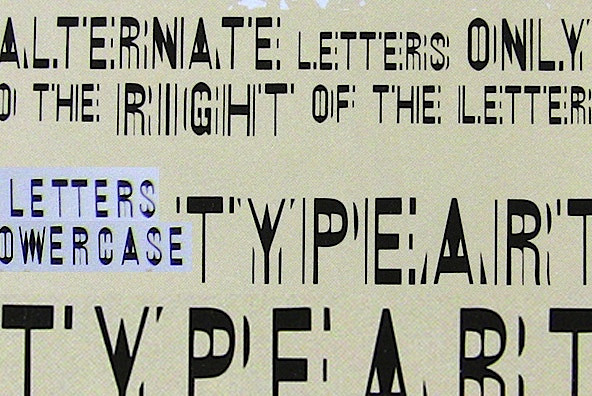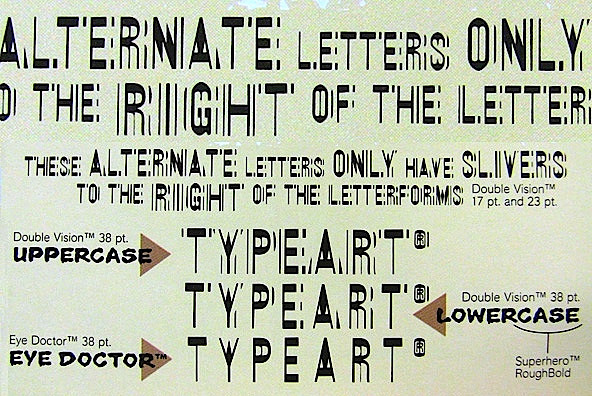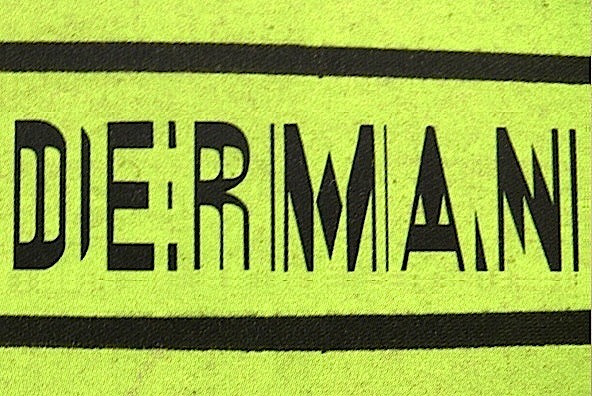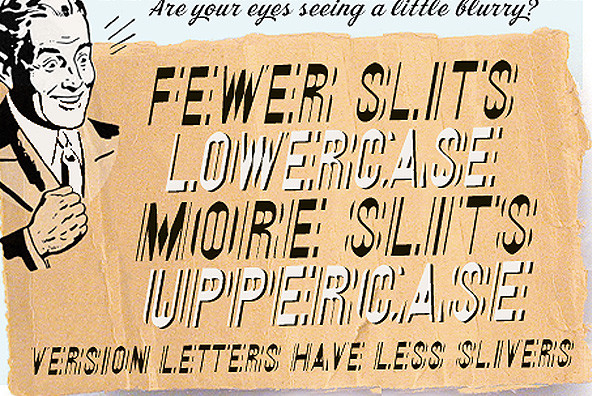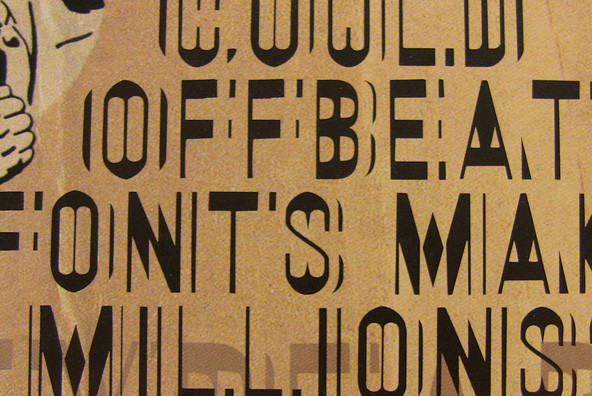
Double Vision
When using Double Vision™, if you are setting an "E" or an "e" followed by an "o" (or other circular characters "c", "g", "q" and "s"), there is a special version of the "e" which can only be found in the "ę" (E and e-circumflex) character slots. In these versions, the ends of the upper and lower crossbars on the "e" have curved extensions rather than the square ones found on all the other versions of the "e". These curved extensions replicate the way the "double vision" effect should actually look when the "e" is followed by any of the circular letters. Simply set the e-acute in place of the regular "e", in such cases, and then block out the accent portion of the character. You can also do this for an "F" or an "f" followed by a circular character, by also blocking out the bottom part of the "e". Although the results of your efforts will be subtle, it will really add an extra touch to your set type, especially if you are working at large point sizes.
WHEN A "SQUARE" MEETS A "CIRCLE"
If you are really into maximizing the effectiveness of your typesetting with Double Vision™, there are some other letter combinations you can watch out for. For the purposes of this explanation, the "square" letters being referred to are the characters which have a solid vertical sliver going down the right hand side (i.e. the H, h, I, i, M, m, N, n, and sometimes the J, j, U, u, plus some special characters too). Whenever you set these square letters and they are followed by the circular letters (described above), the proper replication of the "double vision" visual effect would be to change the square sliver into a circular one (i.e. the circular sliver to the left of the capital circular characters should REPLACE the sqaure sliver to the right of the square characters. Although it will make your typesetting job a little more time-consuming, this effect can be achieved by blocking out the square sliver and setting a capital circular character beside it, which you will have to kern to bring it overtop of the blocked out portion of the square letter. (e.g. if you are setting the word "hope", you would actually type "hOpe", and then block off the sliver to the right of the "h" and tighten the kerning between the "h" and the "O" so that the left sliver of the "O" appears to be the right sliver of the "h"). Once again, the final effect is subtle, but may be well worth your efforts.
A-TRICKS
When the upper or lowercase "V" and "W" are followed by the letter "a", you might find that replacing the "a" with the capital "A" will make the text look better. Even though we have made an optical adjustment and added kerning pairs, there appears to be extra space with these character combinations which is pleasingly filled by the sliver to the left of the capital "A".
INTERESTING OVERLAY EFFECTS
You can adjust the colour or shade of the slits, by using the Double Vision™ fonts in conjunction with the companion family Eye Doctor™. The companion family is identical in terms of its kerning and spacing, but has all the slits removed. If you set some text in Double Vision™ and colour it 30% black (for example), you can then place a copy of the text directly on top, and colour it 100% black and change the font to Eye Doctor™. Using this technique you can completely control the contrast of the 'blur" in relation to the body of the characters.
ABOUT IMPERFECTIONS
The imperfections in some of the Double Vision™ characters (such as uneven curves, rounded or chipped corners, off-axis angles, and slight baseline shifts) ARE all intentional. The objective of the font was not only to create the interesting "double vision" effect, but also to maintain a "done by hand" quality. If we had made the characters too even and consistant, a certain dynamic would have been lost.
COMPANION FACES
A version of Double Vision™ which has the blur slits removed is called Eye Doctor™.
FULL CHARACTER SET
Each font in the Double Vision™ family has a full character set of 232+ letterforms, with all characters designed in the style of the font.